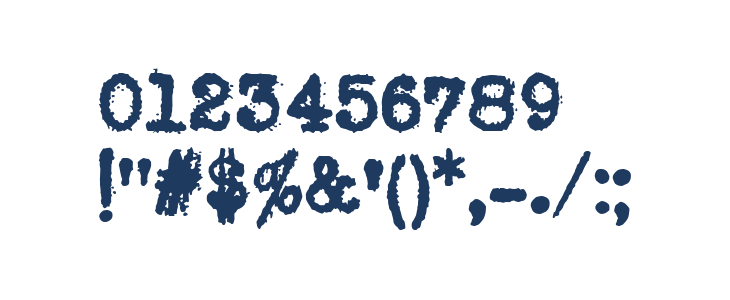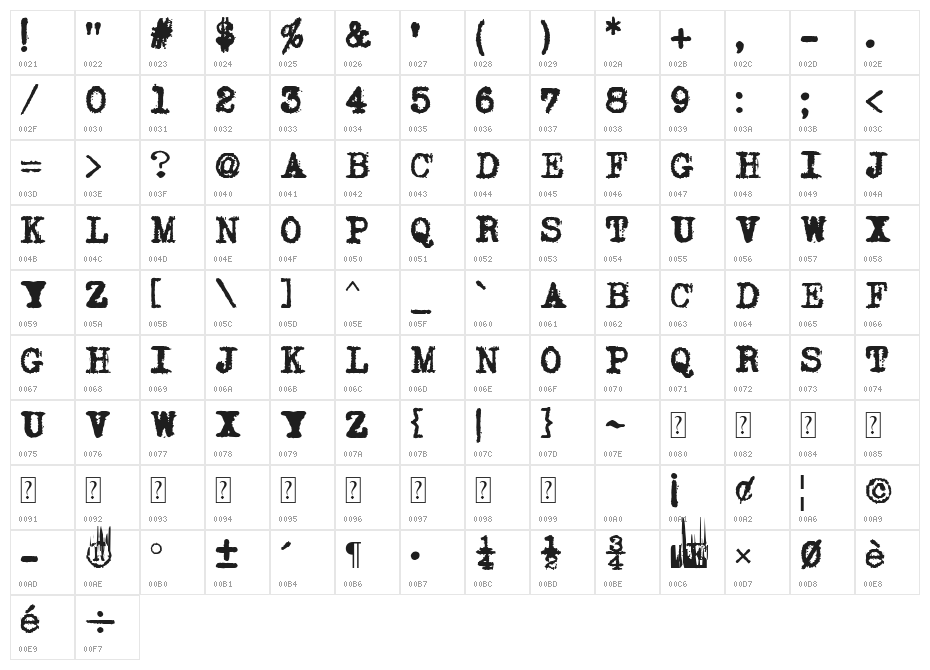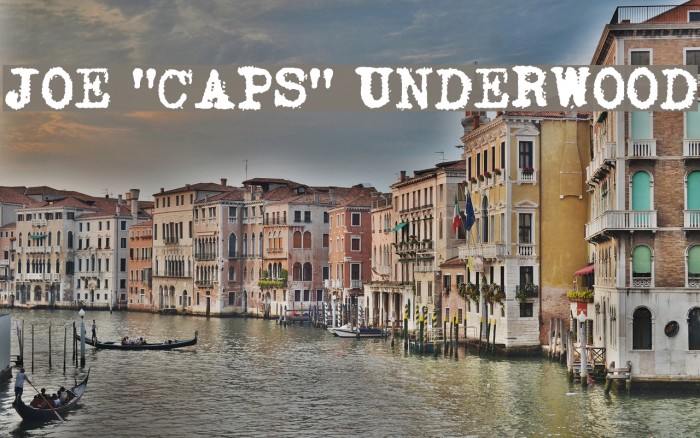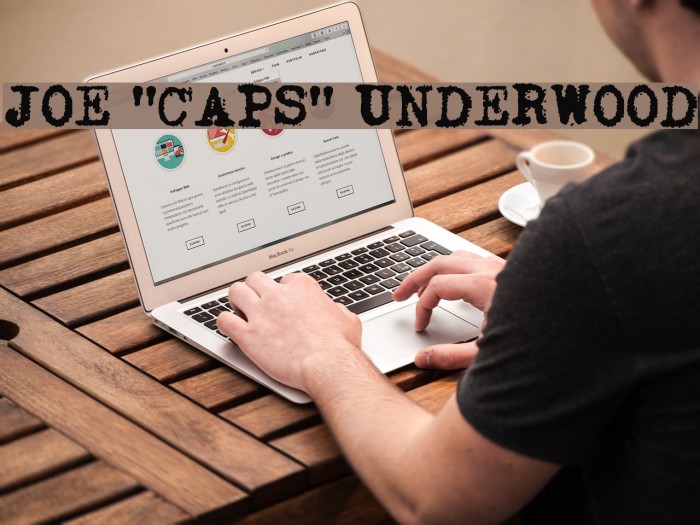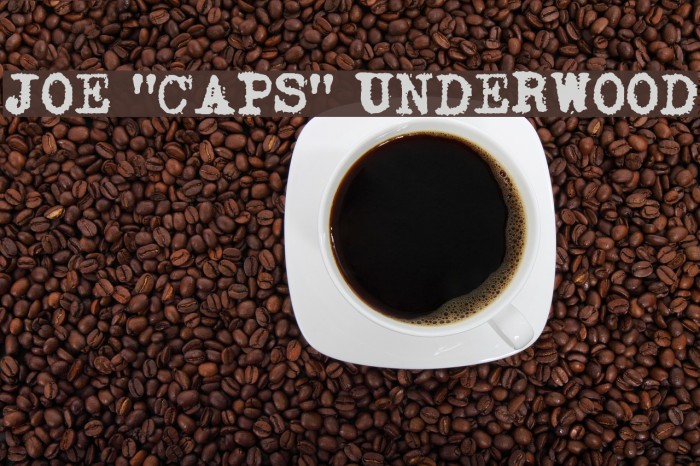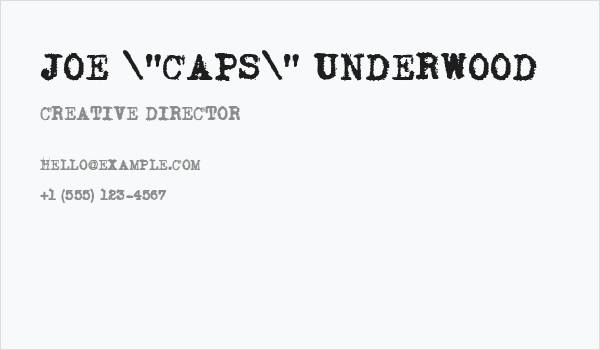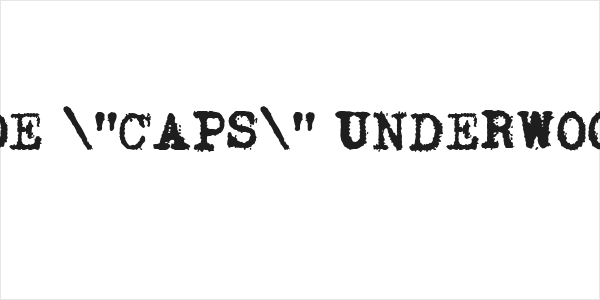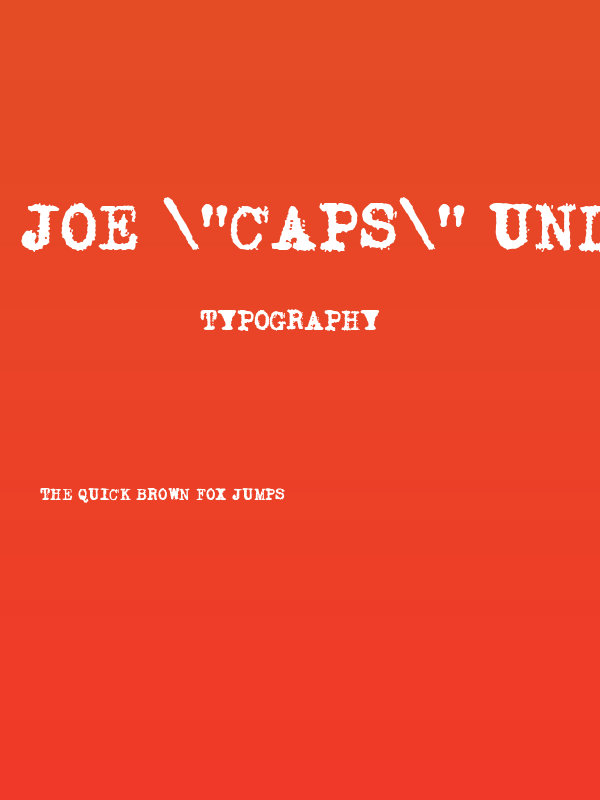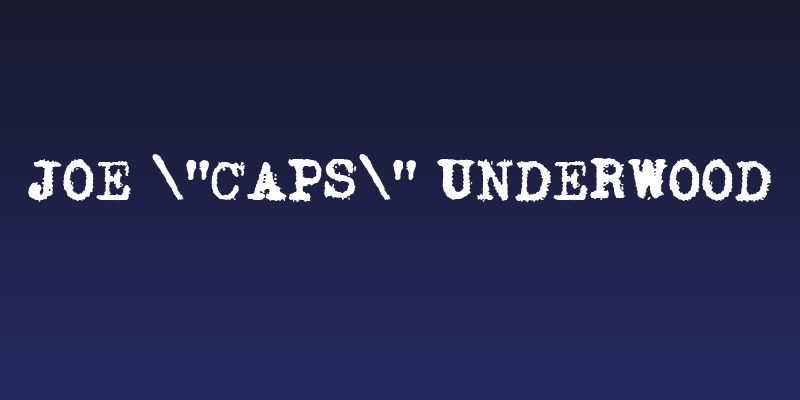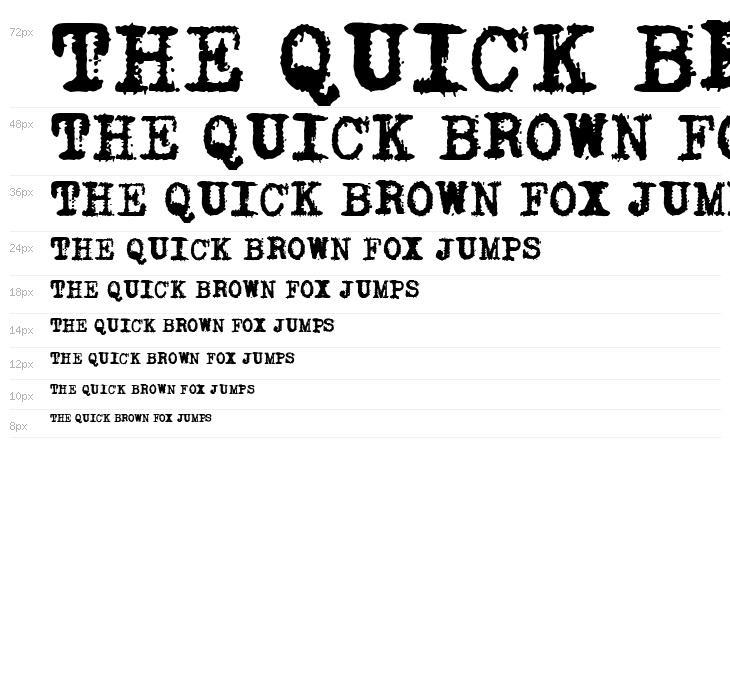
Joe "Caps" Underwood Font
Joe "Caps" Underwood Description
This font features a rugged, distressed style with a bold and impactful presence. The characters have a textured, worn appearance, reminiscent of vintage typewriter or letterpress printing. Each letter is uniquely irregular, adding to the overall grunge aesthetic. The uppercase and lowercase letters maintain a consistent style, with thick strokes and rough edges that give a sense of authenticity and character. The numerals and special characters follow the same design, ensuring a cohesive look across all text elements.
| Proposed Projects | Ideal for projects requiring a vintage or rugged look, such as posters, album covers, or branding for outdoor or adventure-themed products. |